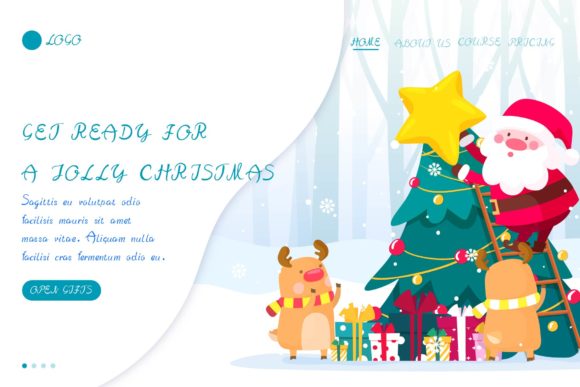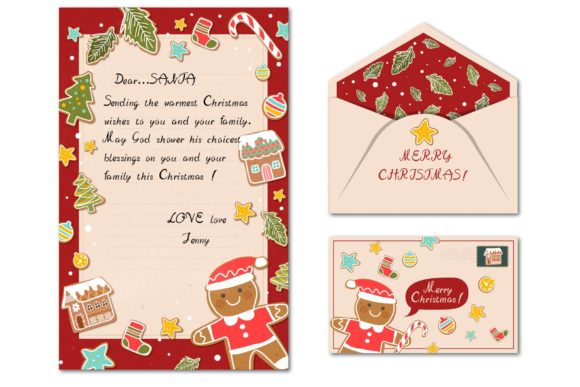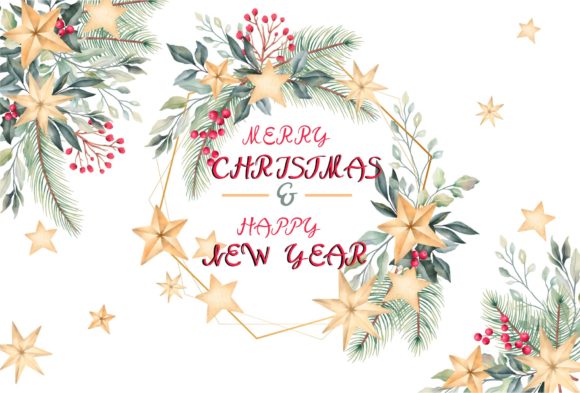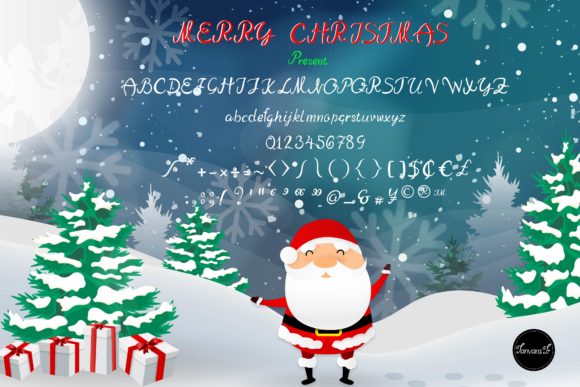
About Merry Christmas Font
Merry Christmas is a stylish and incredibly elegant script font. It looks lovely on wedding invitations, thank you cards, quotes, greeting cards, logos, business cards and every other design which needs a handwritten touch.